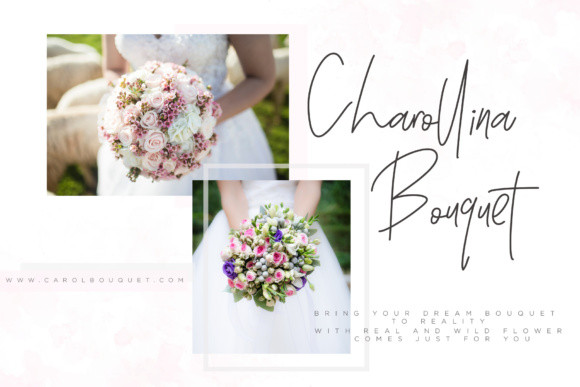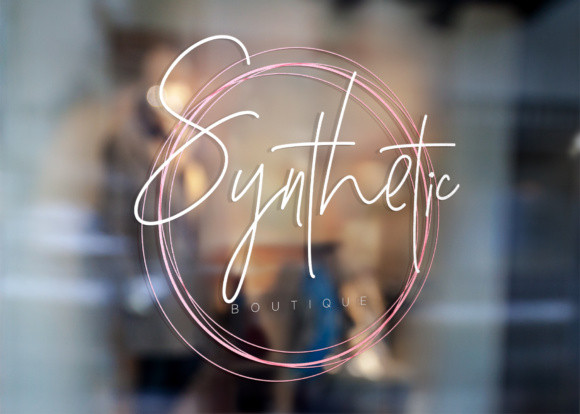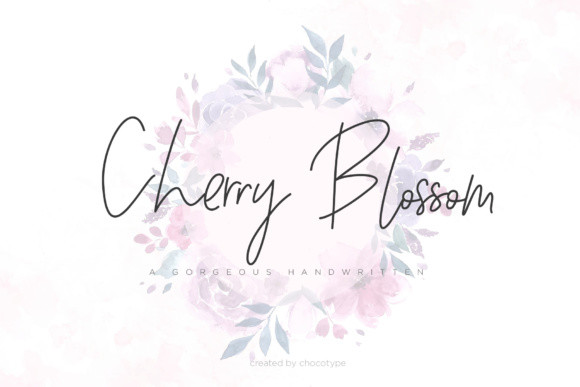
Cherry Blossom Font
The Cherry Blossom Script is an elegant, decorative font.
The feminine touch makes it a great font for a lot of uses, but it’s extremely suited for wedding invites, thank you cards, florist shops & invitation. The completeness and quality make it also a great font for branding, social media, Instagram and more.